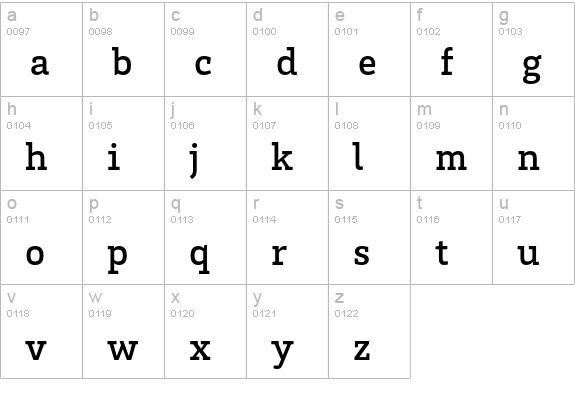
Brix Slab Medium Font Details
Brix Slab Medium is a balanced, medium-weight variant in the Brix typeface family \xE2\x80\x94 well suited to sub-headlines, navigation, and balanced editorial work.
Brix Slab Medium font is a versatile and modern typeface that strikes the perfect balance between professionalism and creativity. With its clean lines and sturdy appearance, this font is ideal for a wide range of design projects, from branding to editorial design. The medium weight of Brix Slab adds a touch of sophistication while maintaining readability across various applications. What sets Brix Slab Medium font apart is its seamless integration of classic and contemporary design elements, making it a timeless choice for any project. Whether you're designing a sleek website or a stylish publication, this font will bring a sense of elegance and refinement to your work. Best of all, Brix Slab Medium font is available for free download at FontsMarket.com. So, you can easily access this high-quality typeface and elevate your designs without breaking the bank. Don't miss out on the opportunity to add Brix Slab Medium to your font collection and take your projects to the next level.